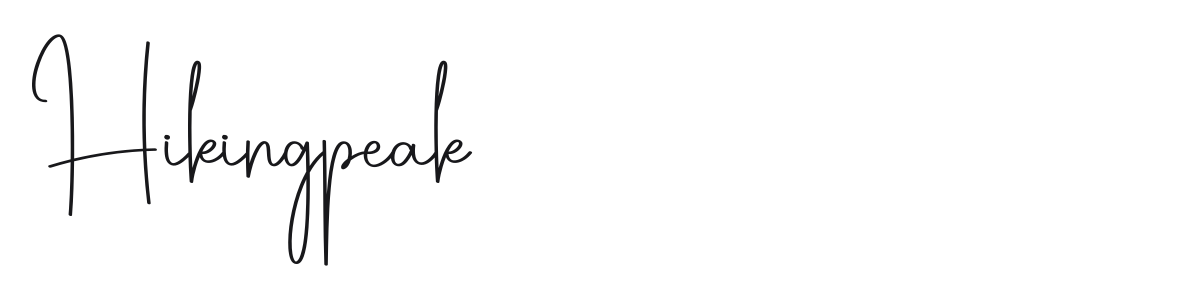
Hikingpeak
Hikingpeak is a thin, flowing casual script with long looping strokes and a natural handwritten quality. The loose, airy letter connections give it a relaxed elegance that sits comfortably on wedding invitations, packaging, and lifestyle branding. It carries just enough polish to feel intentional without losing its hand-drawn warmth.